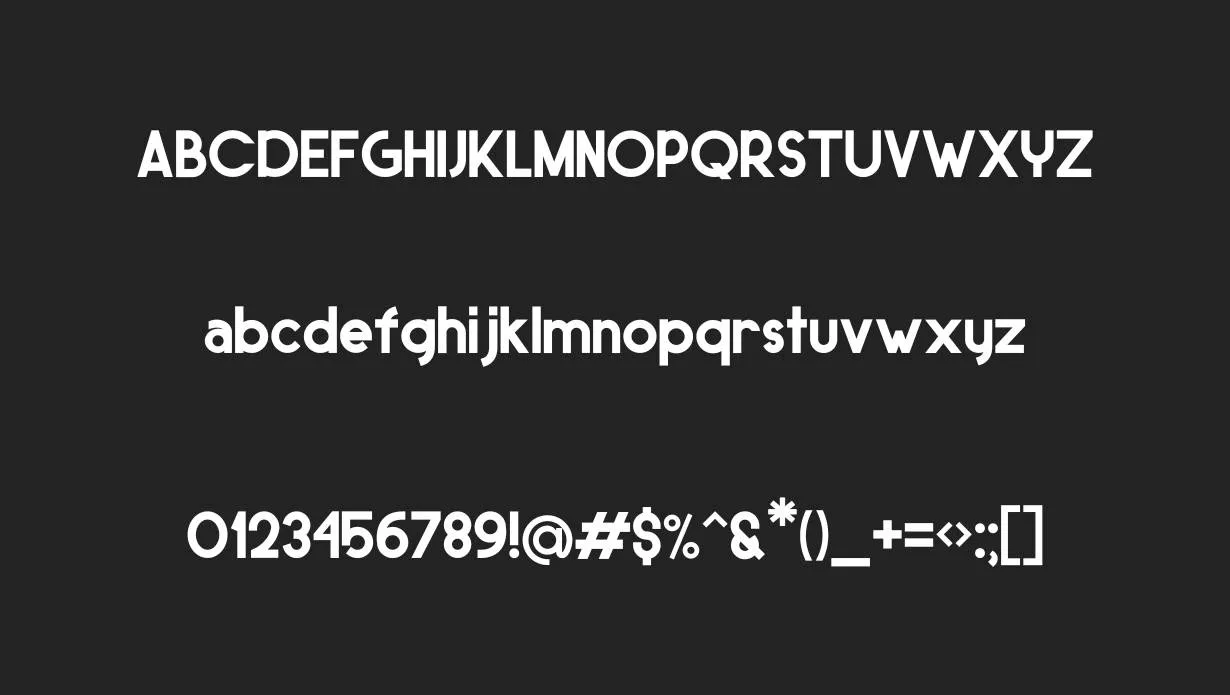
Sunday Font is known for its casual and playful vibe, with rounded edges, friendly curves, and a relaxed appearance. This typeface is perfect for projects seeking a lighthearted and approachable feel, like children’s books, party invitations, or any creative project that could use a touch of whimsy.
The informal nature of Sunday Font makes it a popular choice for designs that prioritize a friendly and engaging tone, adding a sense of fun and personality to the text.
- Regular
- Medium
- Bold
View of Sunday Font